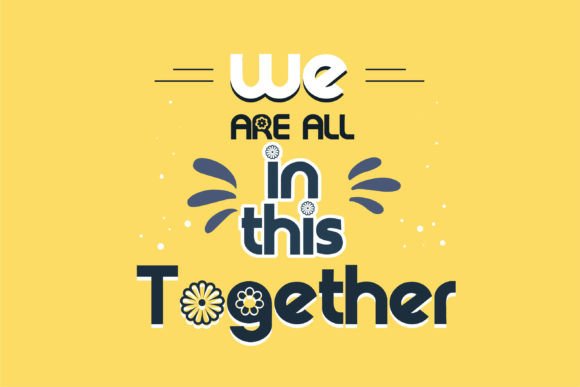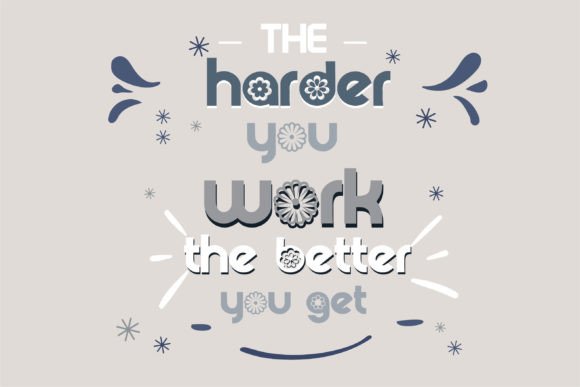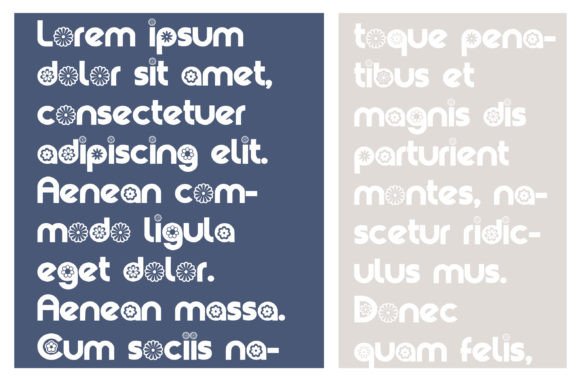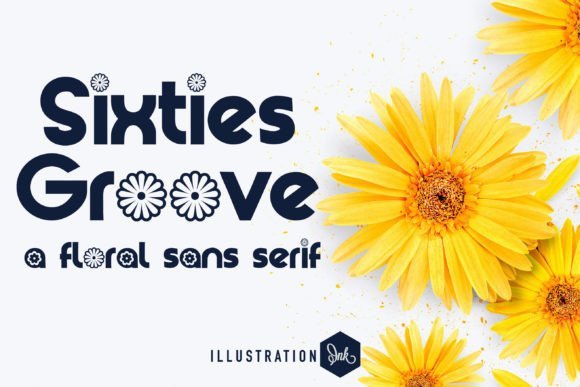
Introduction to Sixties Groove Font
Sixties Groove is a bold and retro sans serif display font.
Add it to your most creative ideas and notice how it makes them come alive .
Why Choose Sixties Groove Font?
Sixties Groove Font offers exceptional quality and versatility, making it a valuable addition to your design toolkit. Whether you’re creating for personal projects or commercial use, Sixties Groove Font delivers professional results.